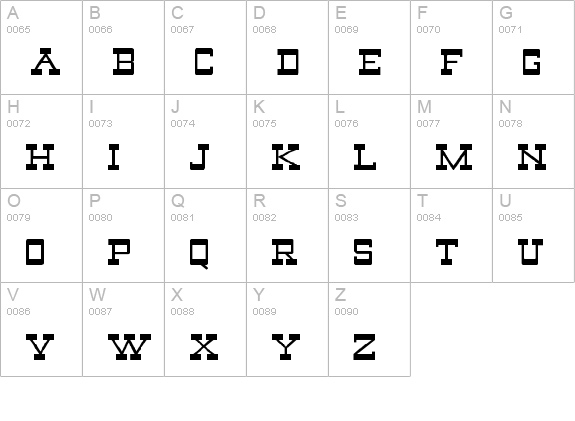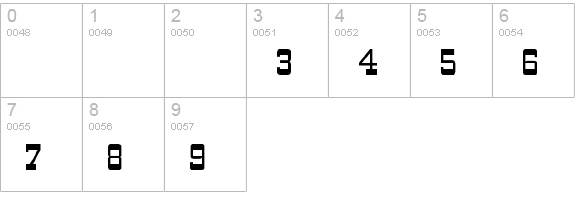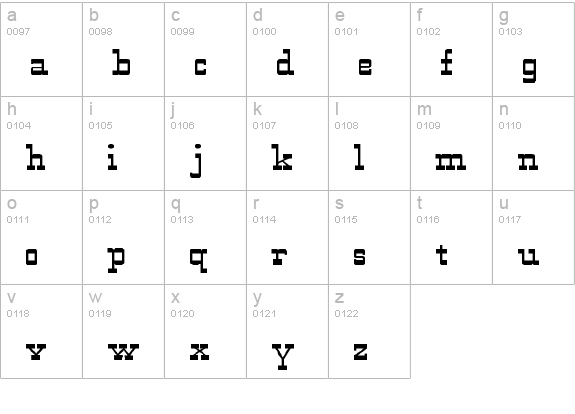
WildWest-Normal Wd Font Details
WildWest-Normal Wd is the standard, neutral variant in the WildWest typeface family \xE2\x80\x94 well suited to general body text, paragraphs, and standard typographic work.
Introducing WildWest-Normal Wd font, a captivating and adventurous typeface that perfectly captures the essence of the Wild West era. This unique font exudes a rugged and rustic charm, transporting you back in time to the days of cowboys, saloons, and wide-open plains. With its bold and slightly distressed letterforms, WildWest-Normal Wd font adds an authentic touch to any design project. Whether you are creating posters for a country western event, designing invitations for a themed party, or adding a touch of vintage flair to your branding, this font will undoubtedly make a statement. What makes WildWest-Normal Wd font even more appealing is that it is absolutely free. That's right, this incredible font can be freely downloaded at FontsMarket.com, giving you the opportunity to bring the spirit of the Wild West into your designs without any cost. Don't miss out on this incredible opportunity to add a touch of nostalgia and adventure to your creative endeavors. Download WildWest-Normal Wd font today and let your imagination run wild.